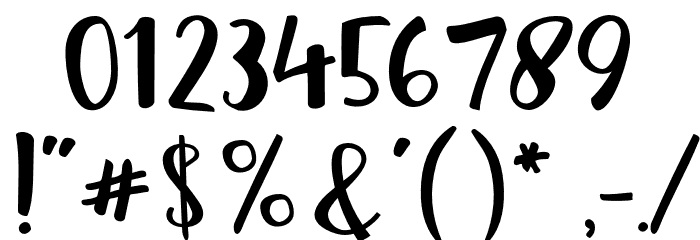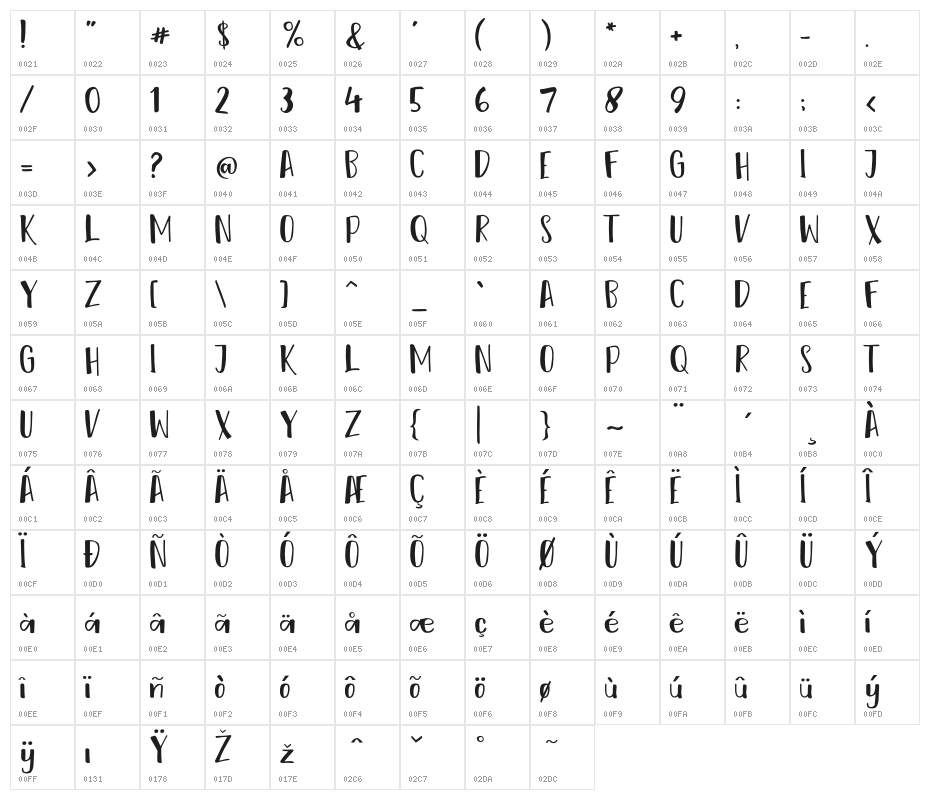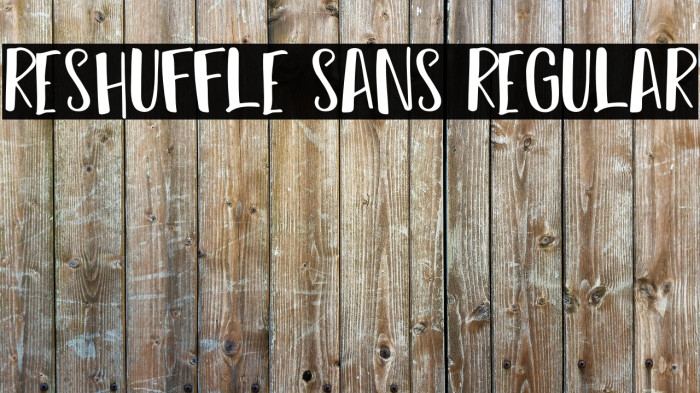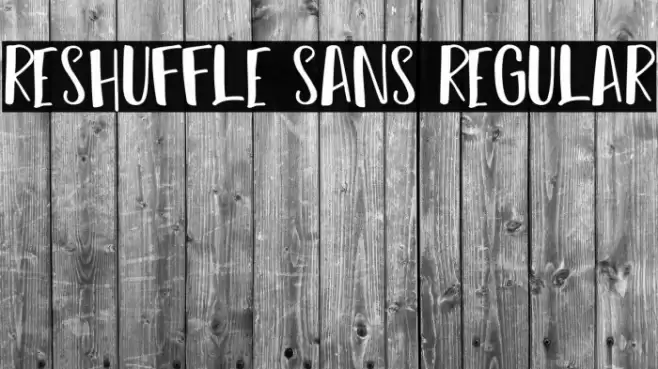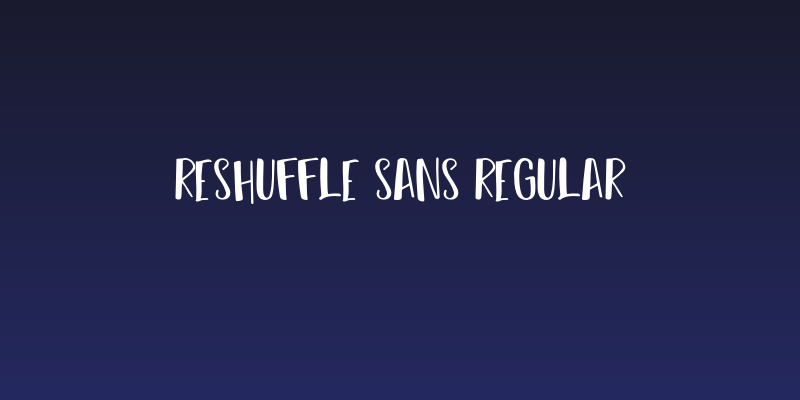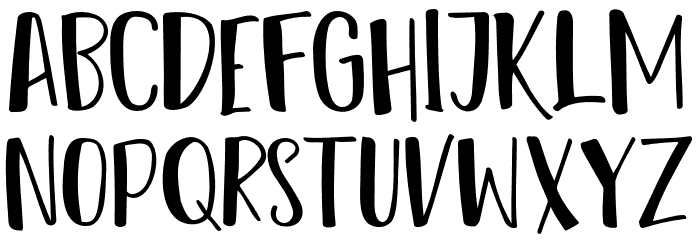
Reshuffle Sans Regular Font
Reshuffle Sans Regular Description
This font features a playful and dynamic style with a hand-drawn appearance. The letters are bold and slightly irregular, giving them a casual and informal look. The uppercase and lowercase characters maintain a consistent height, while the numbers and special characters blend seamlessly with the overall design. The strokes are thick and rounded, contributing to a friendly and approachable feel. This font is versatile, suitable for projects that require a touch of personality and creativity.
| Proposed Projects | Ideal for greeting cards, children's books, playful branding, and social media graphics. |